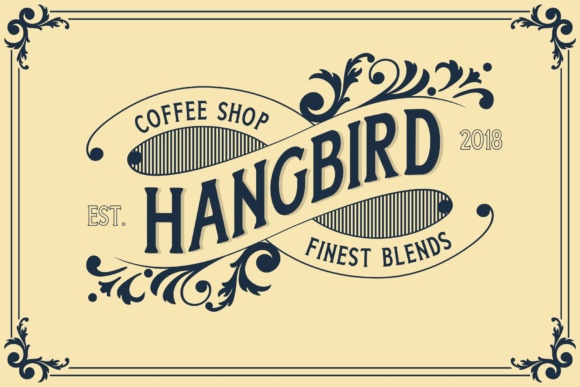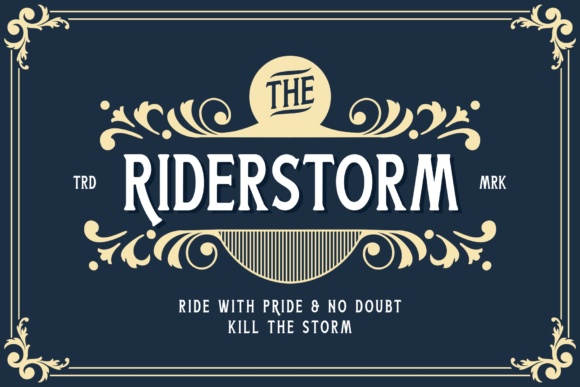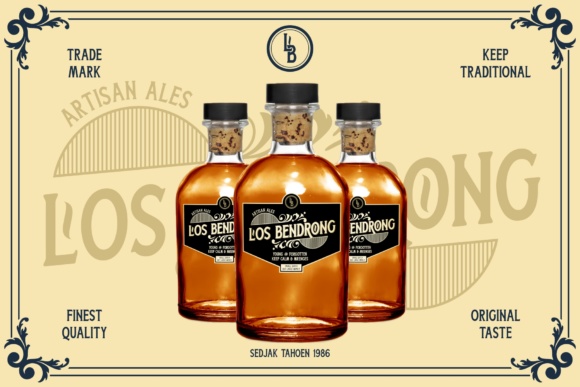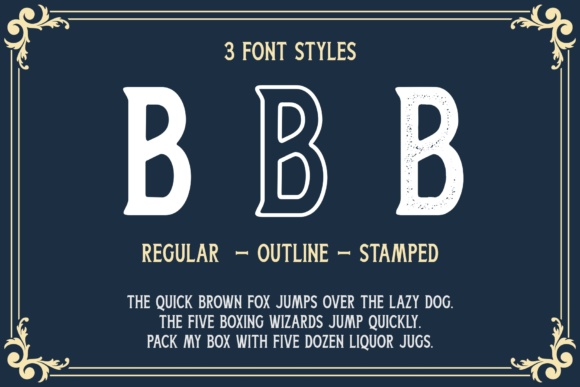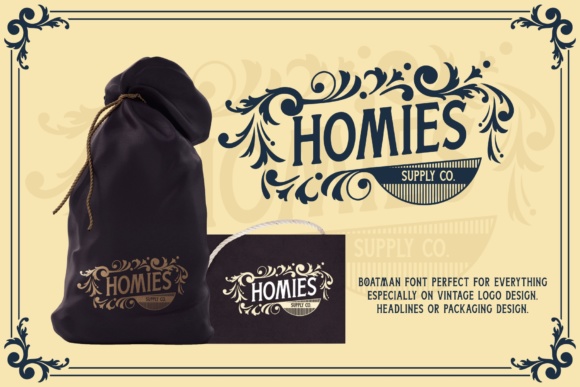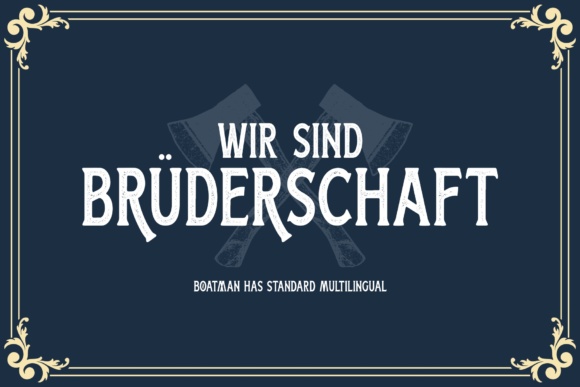
Introducing Boatman Font: A Vintage Display Font for Stunning Designs
Are you a designer or crafter looking for a unique and eye-catching font to elevate your projects? Look no further than Boatman Font, an all-caps, vintage display font inspired by classic whiskey labels and sign painting. With its three styles, stylistic set, and ornament labels, Boatman offers endless design possibilities to create something truly awesome.
Inspiration from the Classics
Boatman Font draws inspiration from the classic whiskey labels of yesteryear, evoking a sense of nostalgia and sophistication. The font’s vintage charm is perfect for designers and crafters who want to add a touch of elegance and refinement to their work. Whether you’re designing a logo, packaging, or signage, Boatman Font is sure to make a statement.
Three Styles to Suit Your Needs
Boatman Font comes in three styles: regular, outline, and stamped. This range of styles allows you to experiment with different design possibilities, from bold and dramatic to subtle and refined. The regular style is perfect for headlines and titles, while the outline style adds a touch of whimsy and playfulness. The stamped style, meanwhile, gives your text a sense of depth and dimension.
Stylistic Set: Endless Options for Creative Expression
One of the standout features of Boatman Font is its stylistic set, which offers a range of alternate characters to mix and match. This allows you to add an attractive message to your design, creating a unique and eye-catching visual effect. With the stylistic set, you can experiment with different combinations of characters to create a look that’s all your own.
Ornament Labels: Perfect for Text Compositions
In addition to the font itself, Boatman also includes a set of ornament labels that perfectly complement text compositions. These labels can be used to add an extra touch of elegance and sophistication to your design, creating a beautiful and cohesive look. Whether you’re designing a menu, brochure, or website, the ornament labels are a great way to add visual interest and create a lasting impression.
Design Possibilities are Endless
With Boatman Font, the design possibilities are endless. Here are just a few ideas to get you started:
- Create a stunning logo or branding identity for a whiskey or spirits company
- Design eye-catching packaging for a craft product or food item
- Develop a unique and stylish signage solution for a business or event
- Add a touch of vintage charm to your website or social media graphics
Why Choose Boatman Font?
So why choose Boatman Font for your design projects? Here are just a few reasons:
- Unique and eye-catching design inspired by classic whiskey labels and sign painting
- Three styles to suit your needs: regular, outline, and stamped
- Stylistic set offers endless options for creative expression
- Ornament labels perfectly complement text compositions
- Perfect for designers and crafters looking for a vintage and sophisticated font
In conclusion, Boatman Font is a versatile and stylish font that’s perfect for designers and crafters looking to add a touch of vintage charm to their work. With its three styles, stylistic set, and ornament labels, Boatman offers endless design possibilities to create something truly awesome. Whether you’re designing a logo, packaging, or signage, Boatman Font is sure to make a statement.